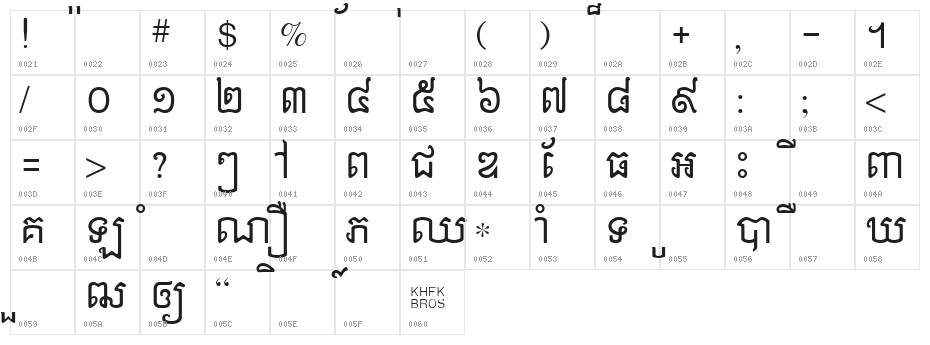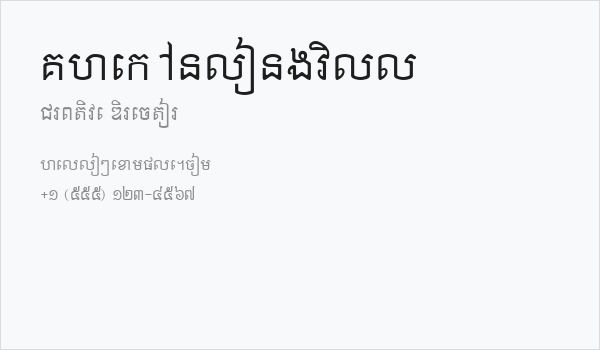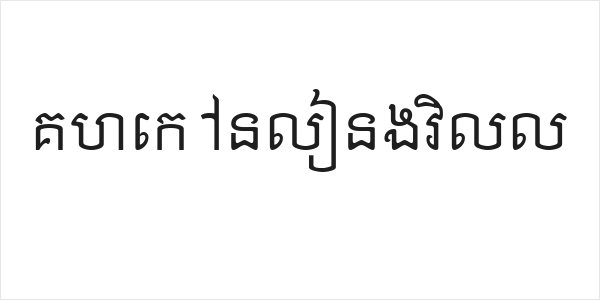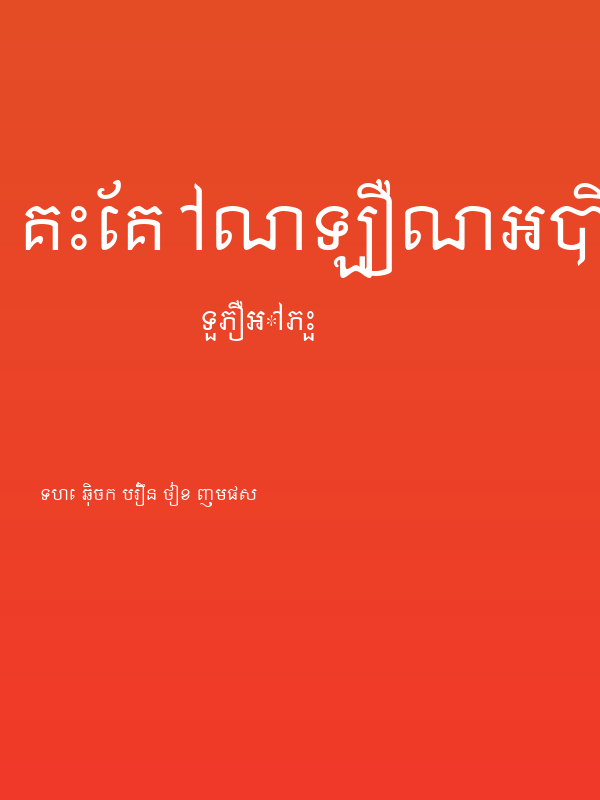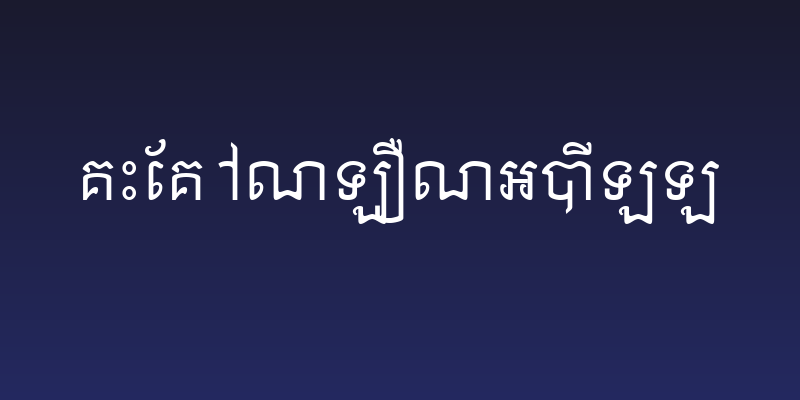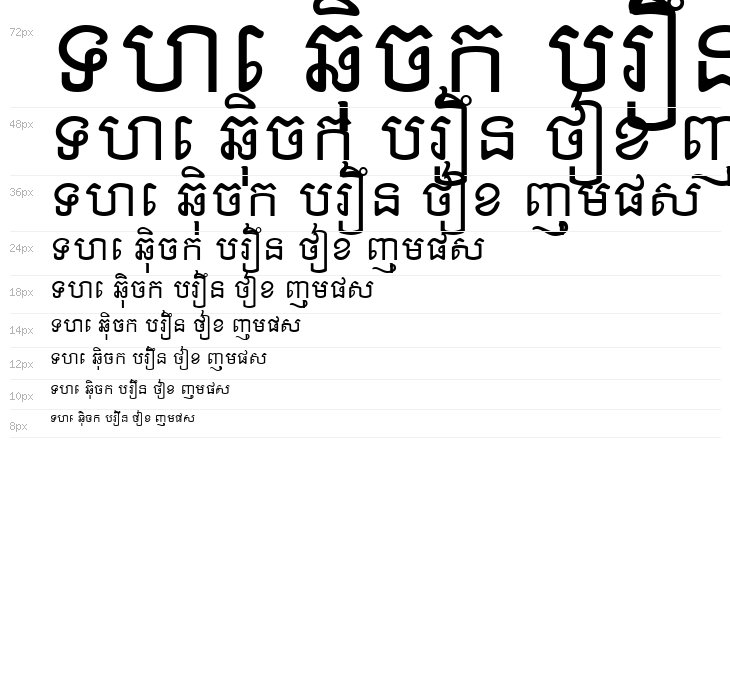
Khek Anlongvill Font
Khek Anlongvill Description
This font features a unique and intricate design, showcasing a blend of traditional and modern elements. The characters are elegantly crafted with a distinct flair, incorporating both angular and rounded shapes. The strokes are consistent in width, providing a harmonious and balanced appearance. The font includes a full set of characters, numerals, and a variety of special symbols, making it versatile for different uses. Its aesthetic appeal is enhanced by the subtle embellishments on certain letters, adding a touch of sophistication and cultural richness.
| Use Case | Logos, Decorative text, Cultural projects |
| Proposed Projects | Ideal for cultural projects, artistic designs, branding, and decorative purposes. |